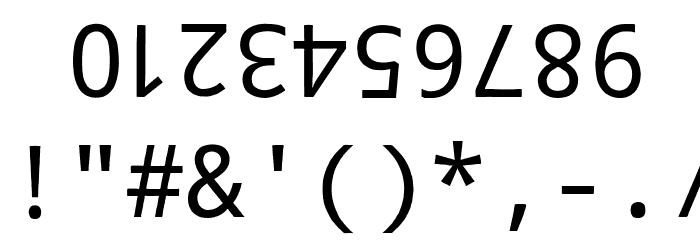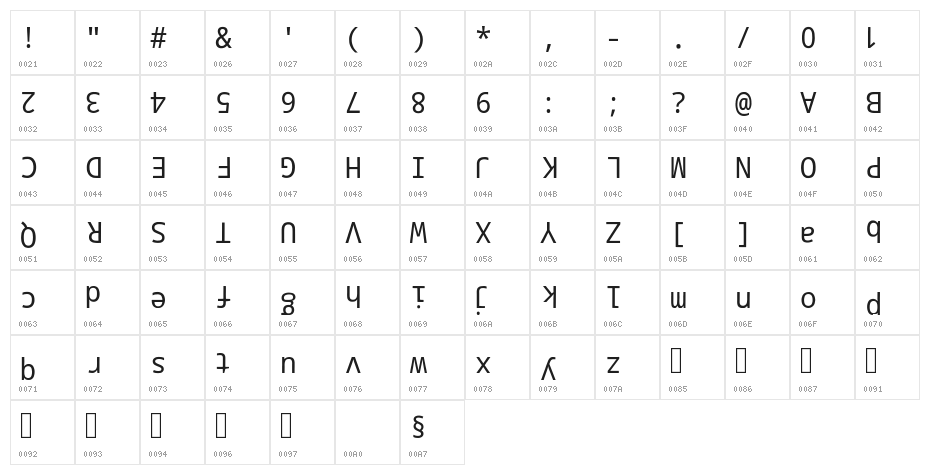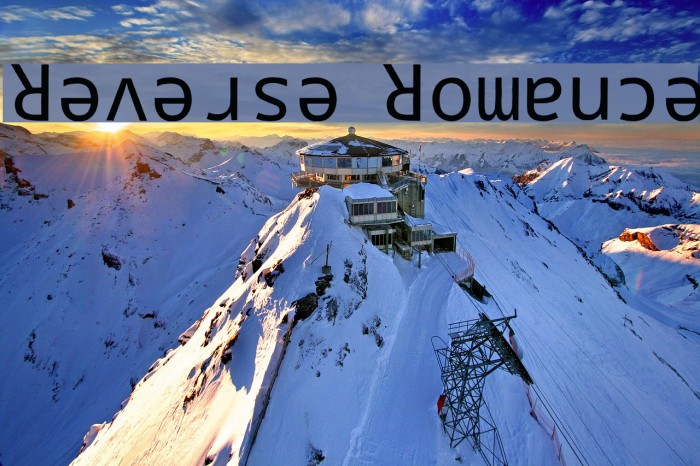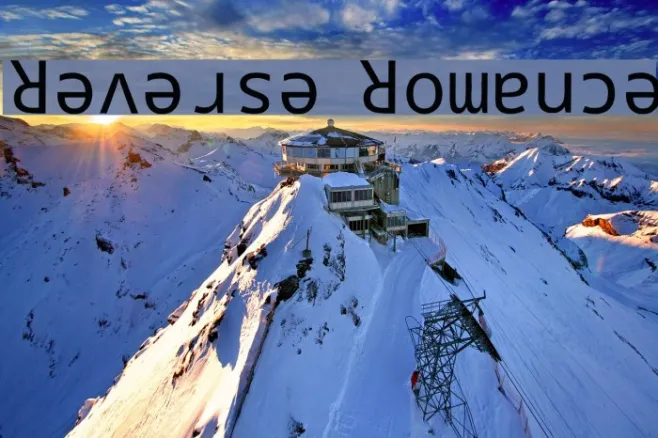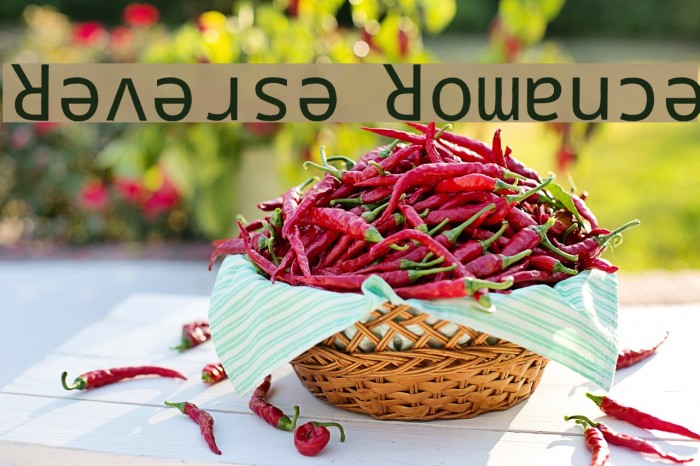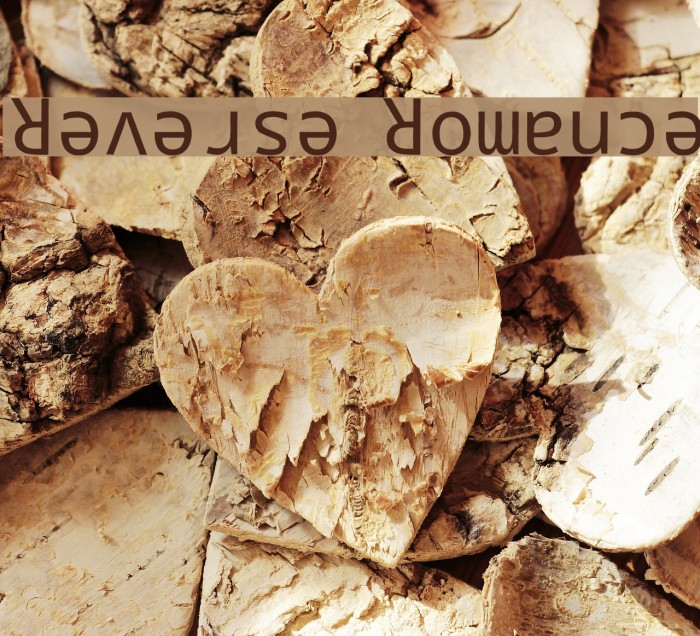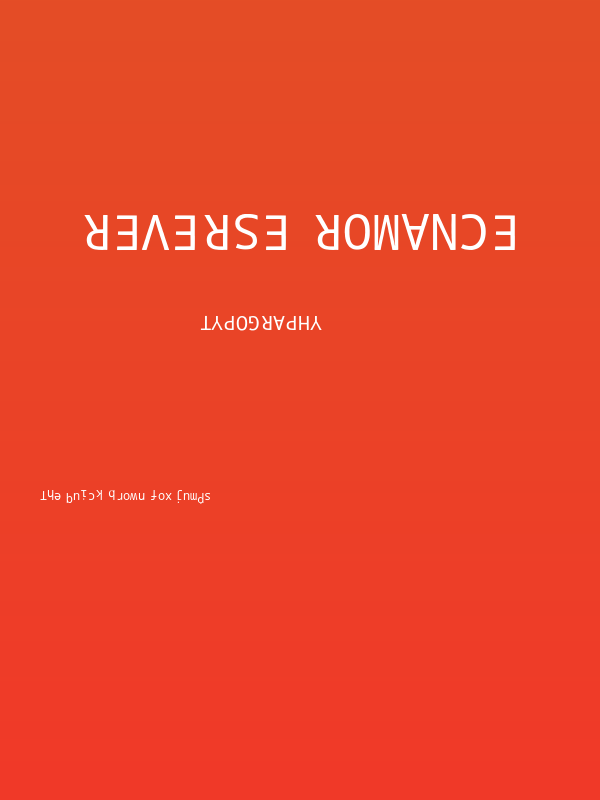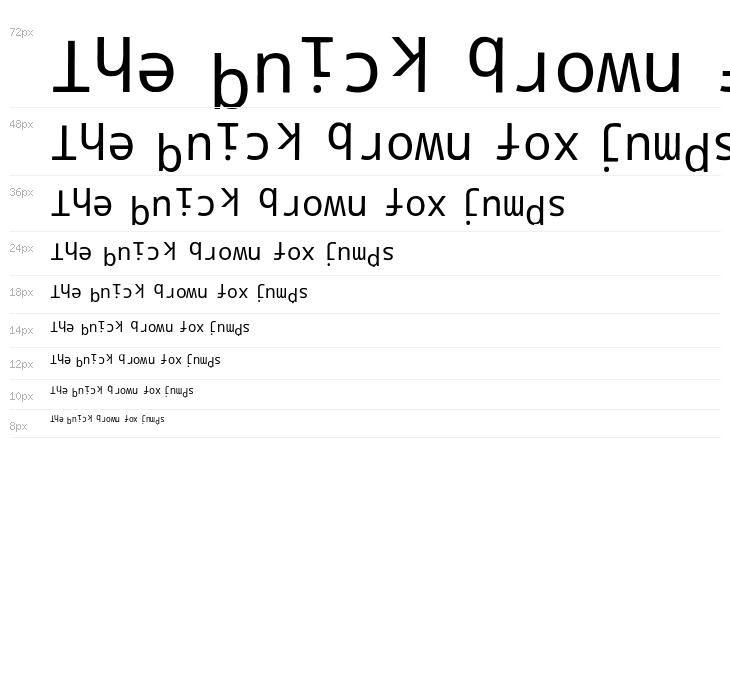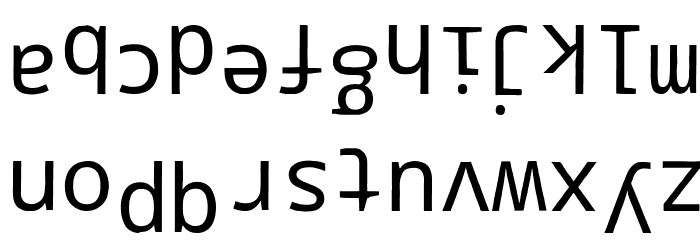
Reverse Romance Font
Reverse Romance Description
This font features a clean and modern sans-serif style with uniform stroke widths, providing a straightforward and professional appearance. The characters are well-balanced, with a slightly condensed width that enhances readability while maintaining a sleek look. The font's geometric shapes and consistent line thickness contribute to its contemporary feel, making it versatile for various design applications. The numerals and special characters are clearly defined, ensuring clarity across different uses. Its simplicity and elegance make it suitable for both digital and print media.